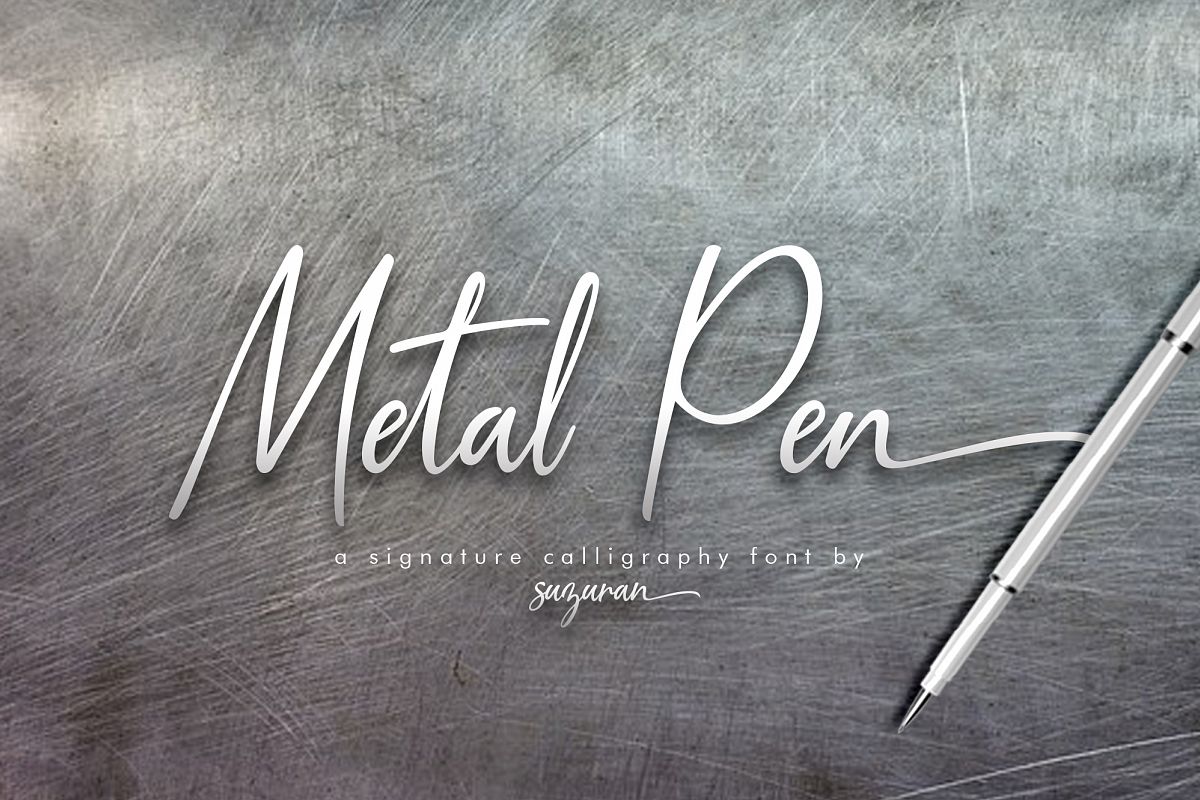
Metal Pen Script 3 Fonts
Introducing the Metal Pen script, a font that is very fresh and unique style handmade + bonus font, Night in Kansas & Free Pen Script for your project. Metal Pen script is perfectly suited to logo, stationery, poster, apparel, branding, wedding invitation, card, tagline, layout design, and much more !!.